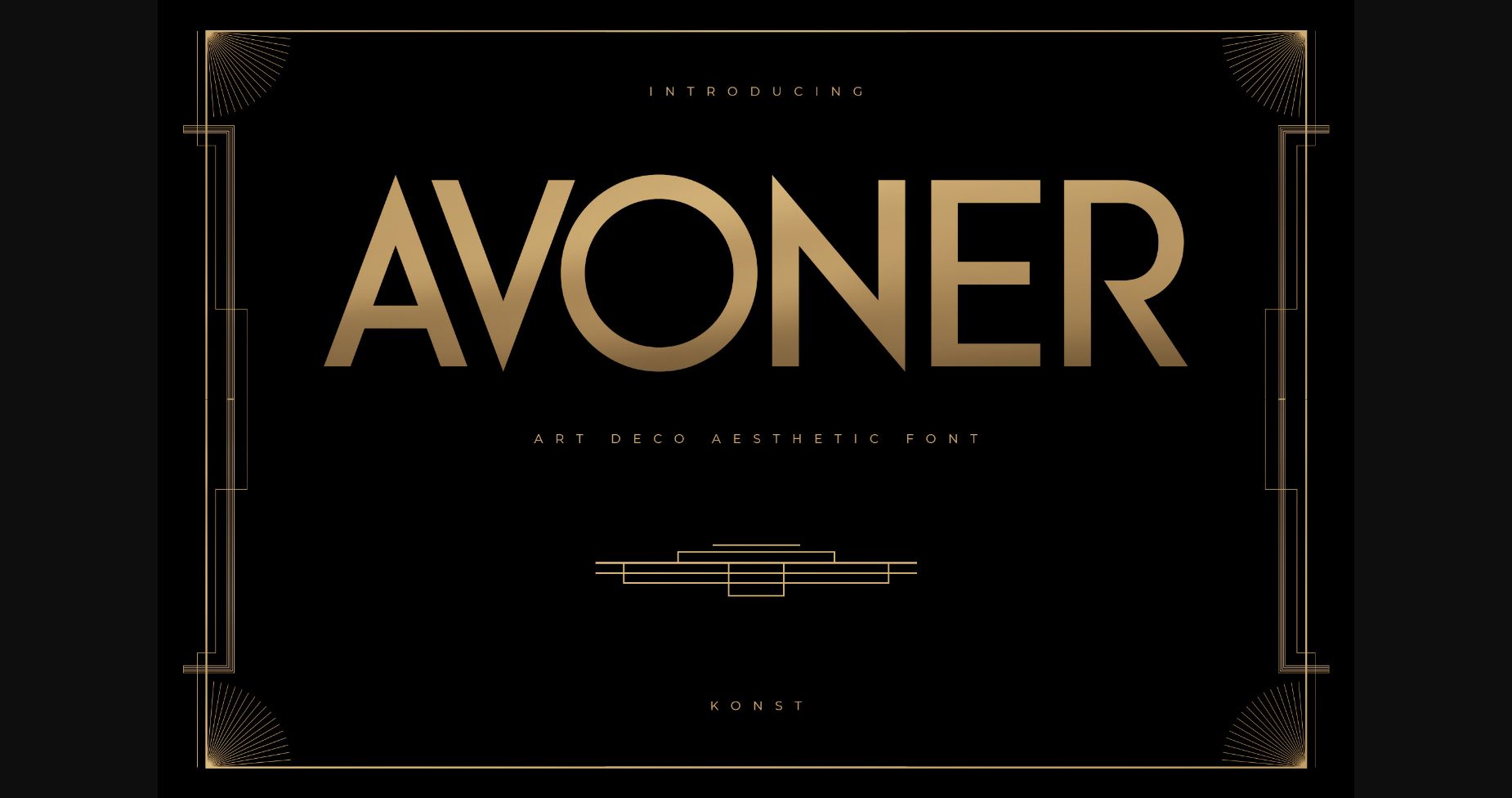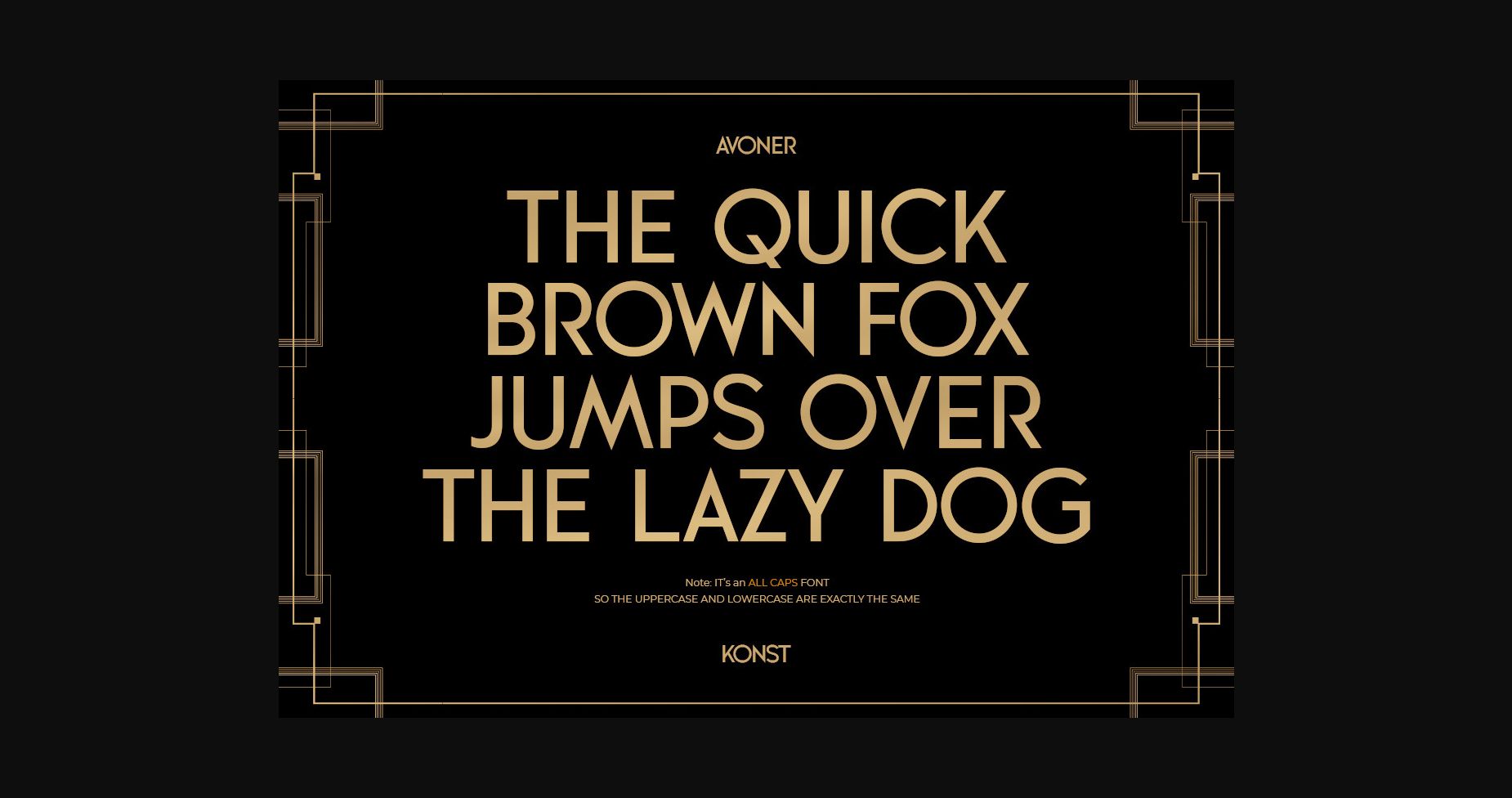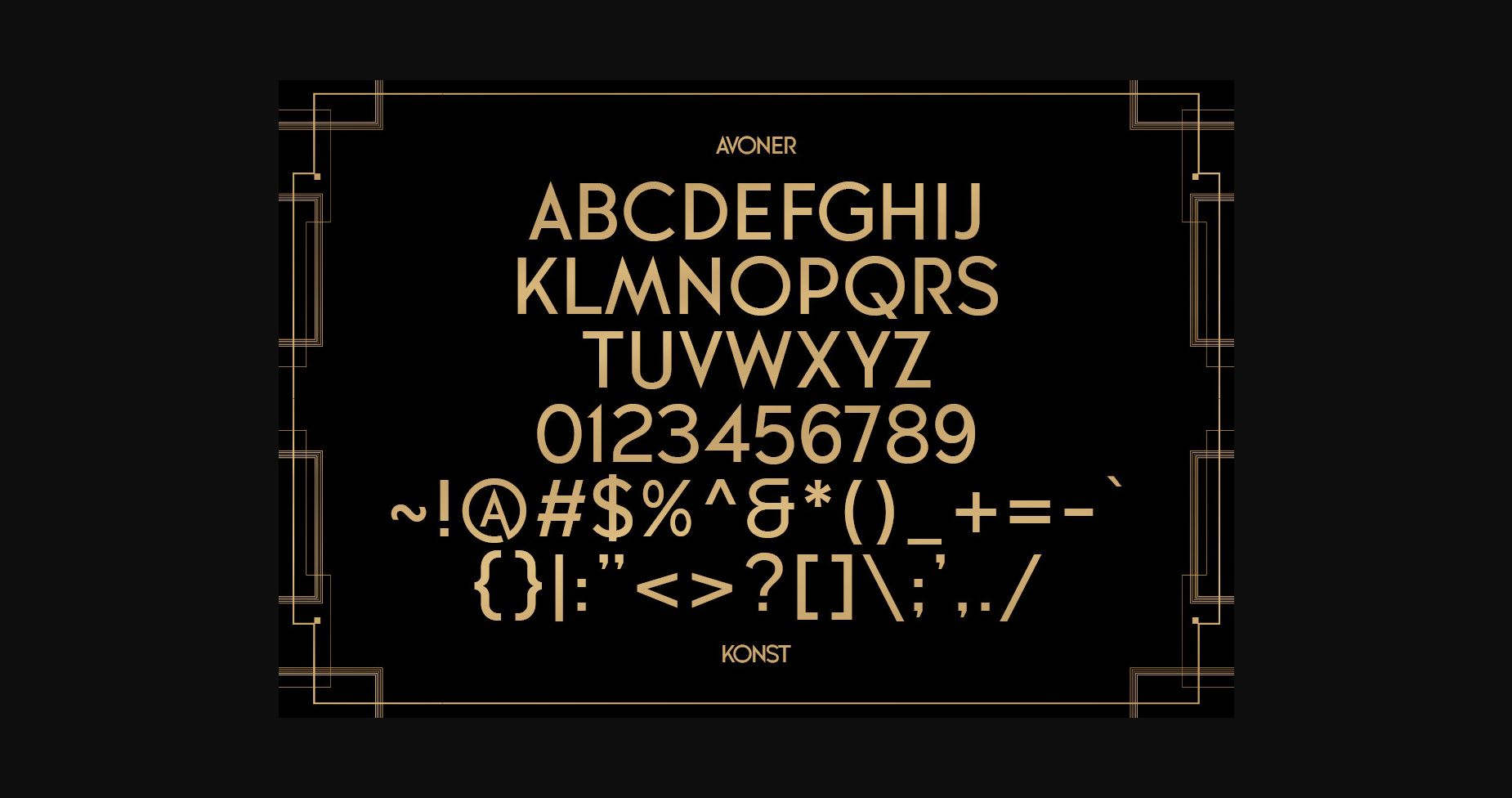
Avoner Font
About Avoner Font
Avoner is a luxury art deco font inspired by the 1930 era of visuals and advertising.
Perfectly fit for your logo, branding, high fashion aesthetic, magazine, jewelry, perfume, makeup, cosmetic, champagne branding, and many more.
note: it’s an ALL CAPS font, uppercase, and lowercase will appear the same.